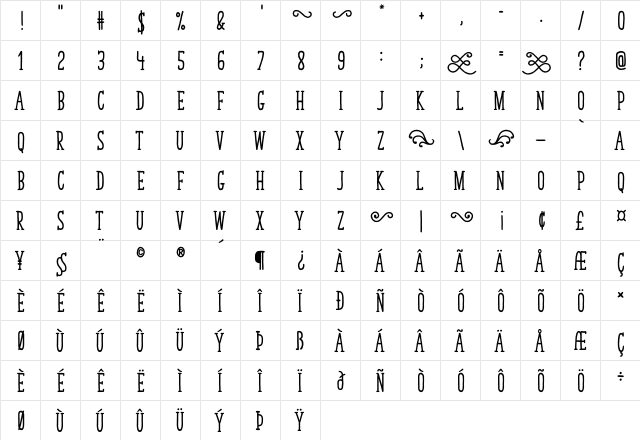
Tasty Birds Bold
| Foundry | Youssef Habchi |
| Designer | Youssef Habchi |
Design Context for Tasty Birds Typeface
Tasty Birds takes a measured approach to typography — its balanced proportions and neutral character make it a reliable workhorse for both digital and print work. The heavy weight commands attention and anchors typographic hierarchies.